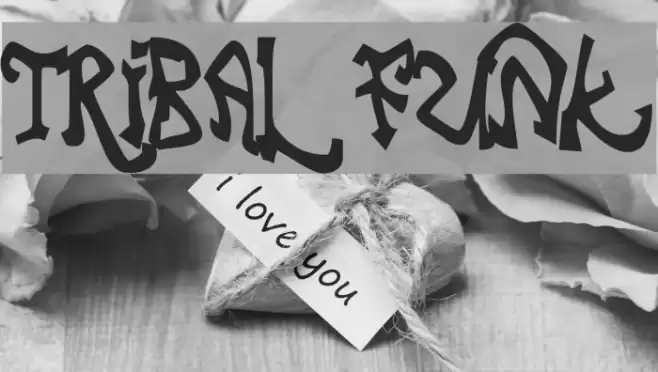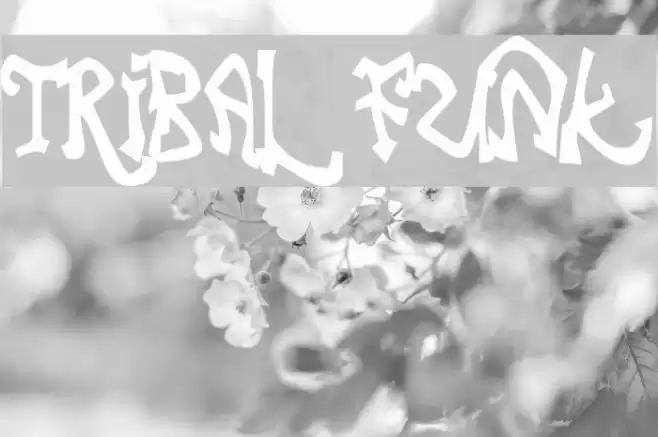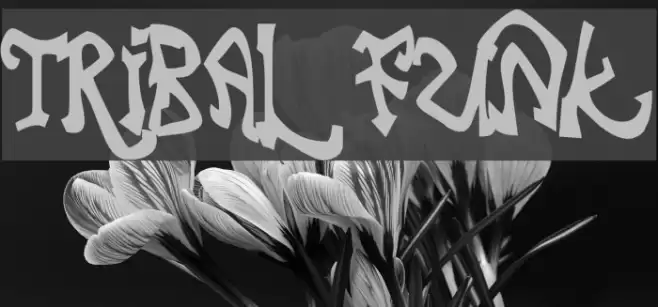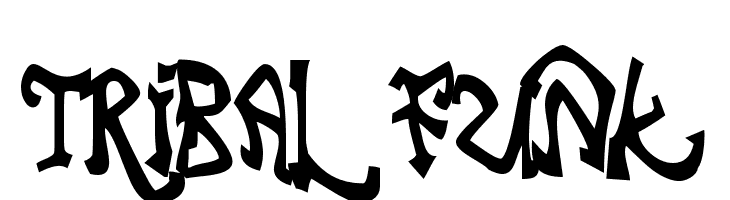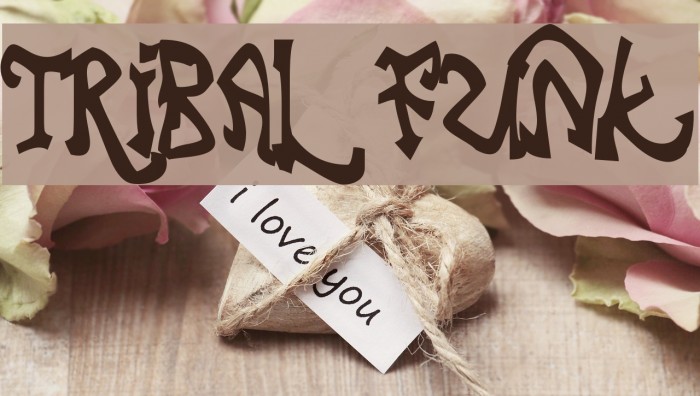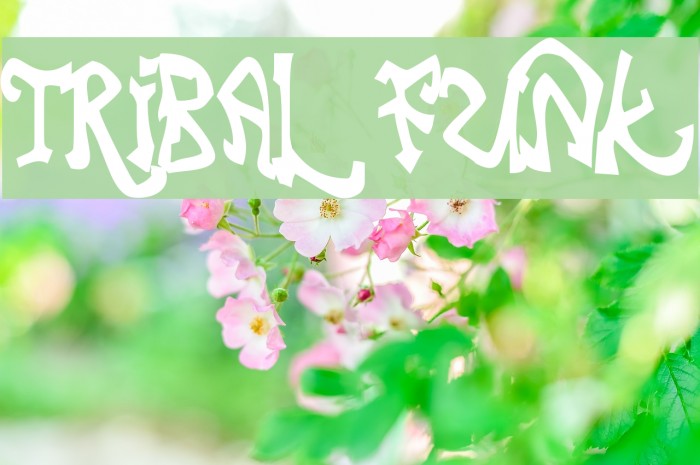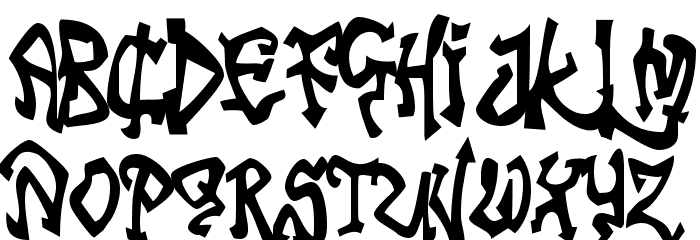
Tribal Funk Font
Tribal Funk Description
This font exhibits a bold and dynamic style with a tribal and funky aesthetic. The characters are heavily stylized, featuring sharp angles and exaggerated curves that create a sense of movement and energy. The uppercase and lowercase letters maintain a consistent visual theme, with intricate details that suggest a handcrafted quality. The font's unique design is reminiscent of graffiti art, making it stand out with its artistic flair. The overall appearance is both edgy and playful, suitable for projects that aim to capture attention and convey a sense of creativity.
A bold, tribal-inspired font with a funky, graffiti-like style from Quirky fonts.
- Proposed Projects: Ideal for music album covers, streetwear branding, event posters, and creative logos.
- Character Spacing: Tight